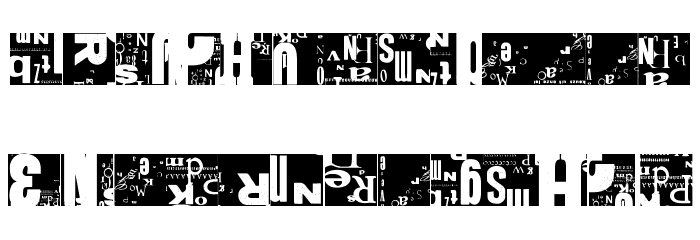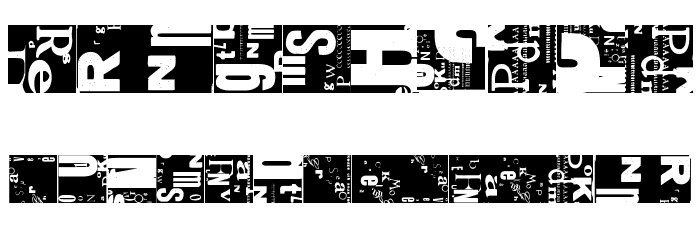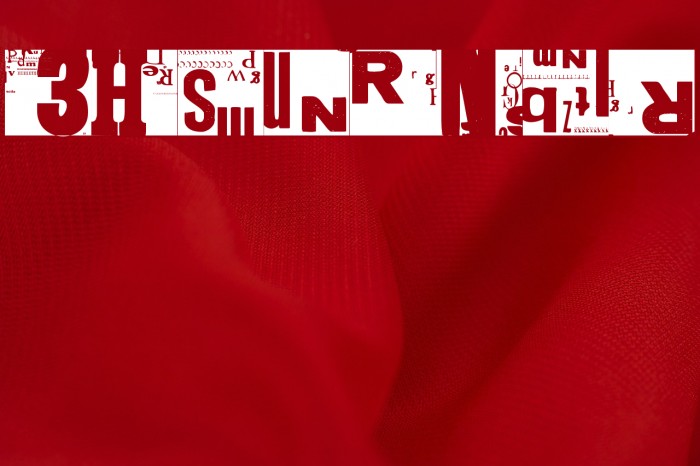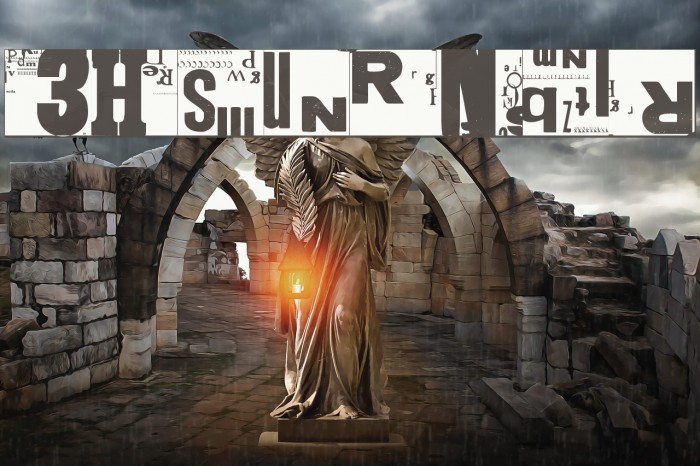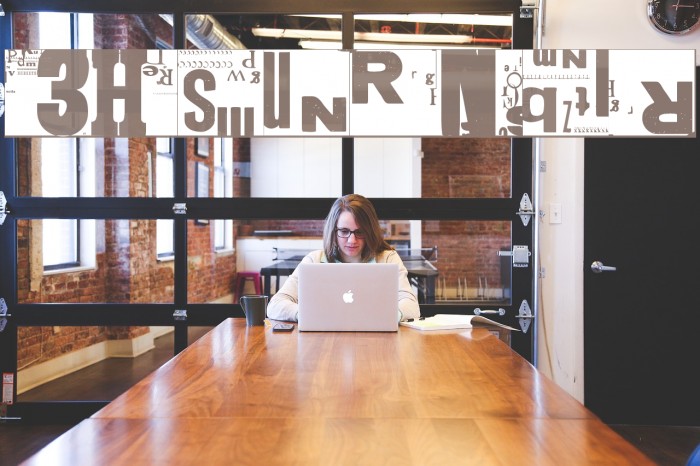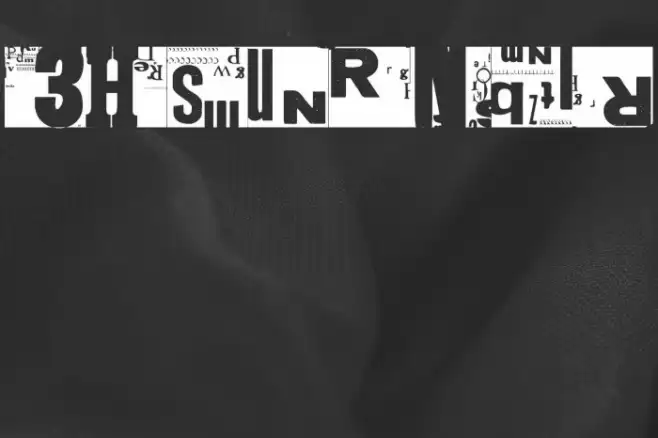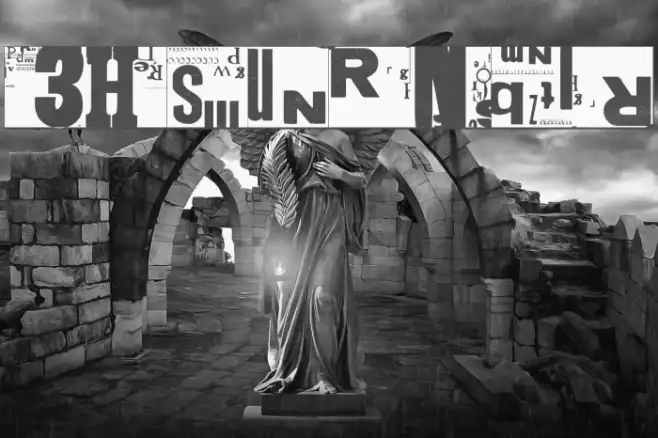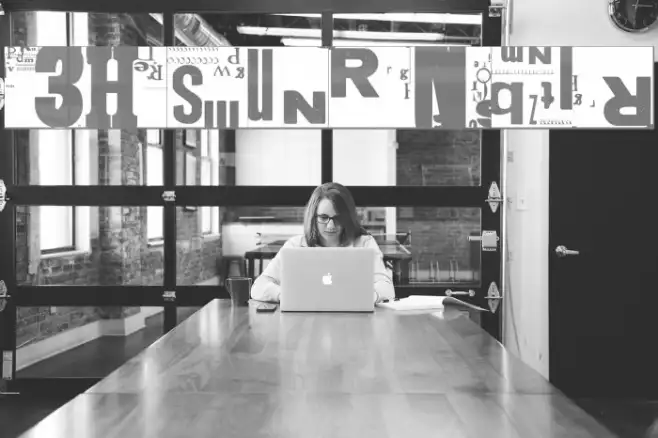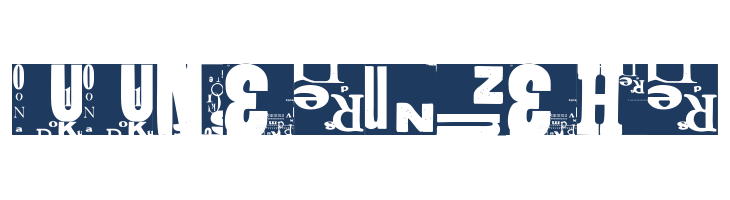
NewsRoar Font
This font is a highly creative and artistic display typeface that combines elements of collage and typography. Each character is composed of a mix of different fonts and styles, creating a chaotic yet visually intriguing appearance. The letters are constructed with varying sizes, orientations, and weights, giving the font a dynamic and unpredictable look. This unique style makes it stand out and captures attention, making it ideal for projects that require a bold and unconventional aesthetic. The font's eclectic nature suggests a playful and experimental approach to design, suitable for artistic and avant-garde applications.
A chaotic and artistic display font with a collage-like appearance.
- Proposed Projects: Ideal for artistic posters, album covers, experimental design projects, and any creative work that benefits from a bold and unconventional typeface.
- Character Spacing: Varied
- Overall Style: Avant-garde, Artistic
- Use Case: Headlines, Artistic projects, Posters